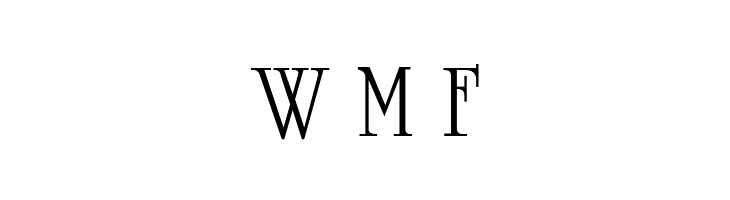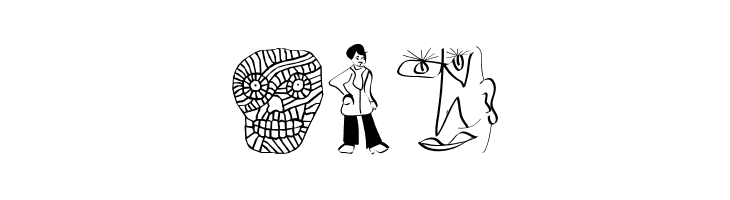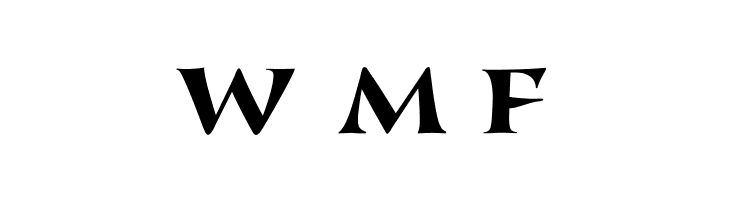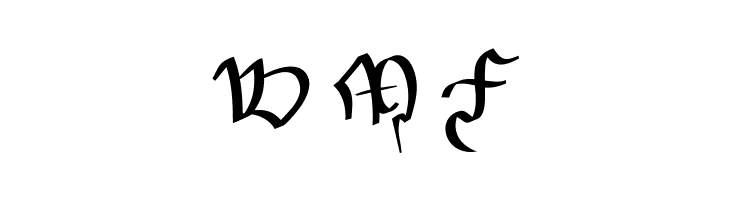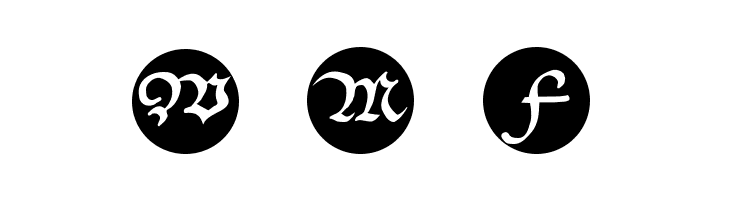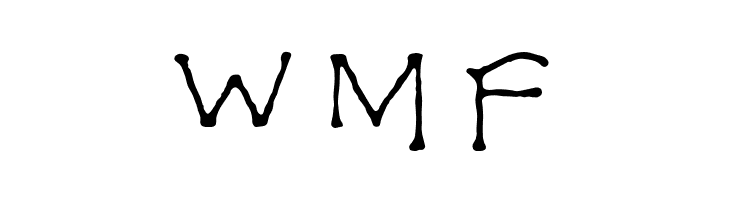
• CalligrSketches
Artistic, hand-drawn font with abstract faces and figures.
• Callimundial
A dynamic, calligraphic font with sharp, angular strokes and high contrast.
• Cambridge Medium
A classic serif font with elegant strokes and refined serifs.
• CancellerescA
A classic blackletter font with ornate, angular strokes and a bold, structured appearance.
• Cankama
A traditional blackletter font with ornate, angular designs and Gothic flourishes.
• CantzleyInverseCaps
An ornate, calligraphy-inspired font with circular enclosures and decorative flourishes.
• Caprice
A whimsical, hand-drawn font with playful, irregular strokes and artistic flair.
• CapsRandomish
An intricate and decorative font with ornate patterns and high contrast.
• CapsRandomishBricks
An ornate, geometric font with intricate patterns and uppercase letters.
• Cardiff Bold
A bold serif font with strong vertical strokes and slightly curved serifs, ideal for impactful headlines.